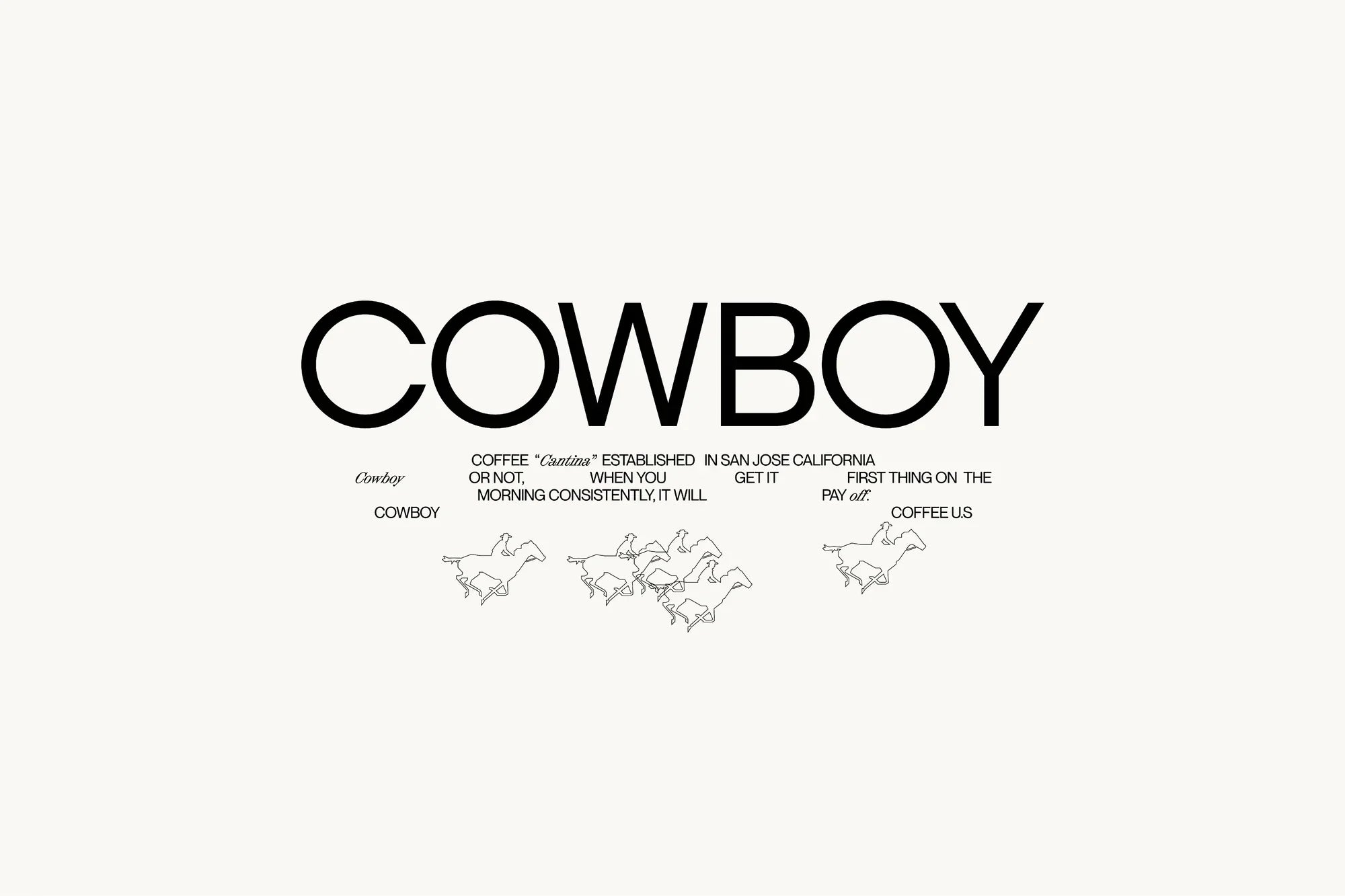
The clean typography and uncluttered layout emphasize simplicity while evoking the spirit of adventure.
"Visual identity for COWBOY, a coffee "cantina" that features a minimalist and bold illustration of a cowboy’s profile, characterized by sharp, geometric forms and a monochromatic color palette that conveys a modern yet rugged aesthetic. "
"Building upon this visual language, we created a series of unique illustrations for the specialty coffee bags - each flavor represented by a different design. These graphics not only differentiate the products visually, but also extend the brand's personality across merch, posters, and other graphic materials, adding depth and versatility to the overall identity."